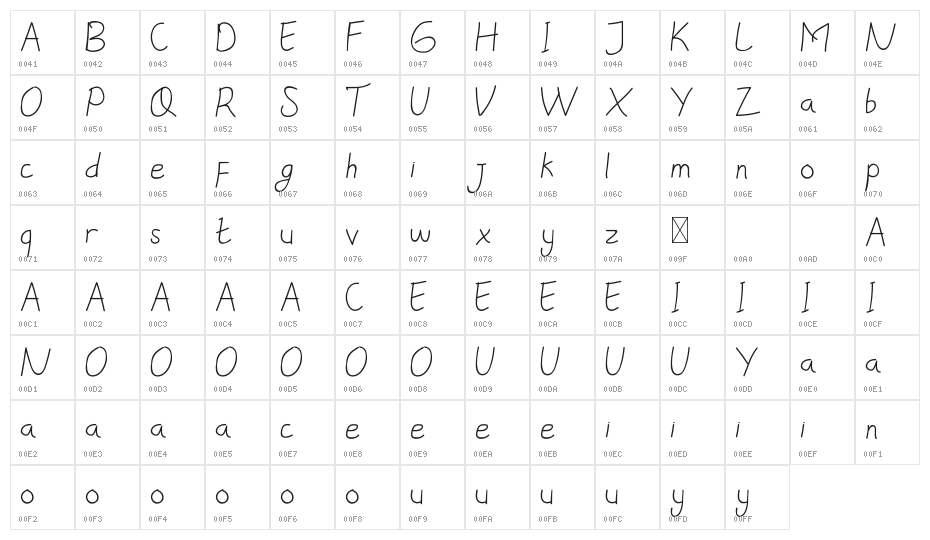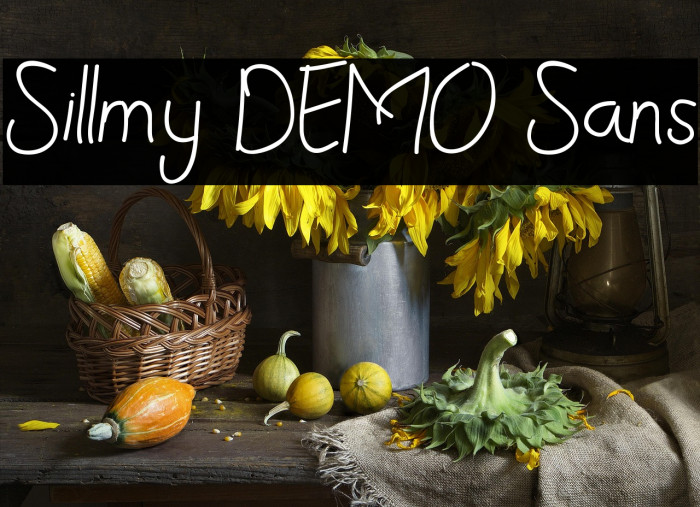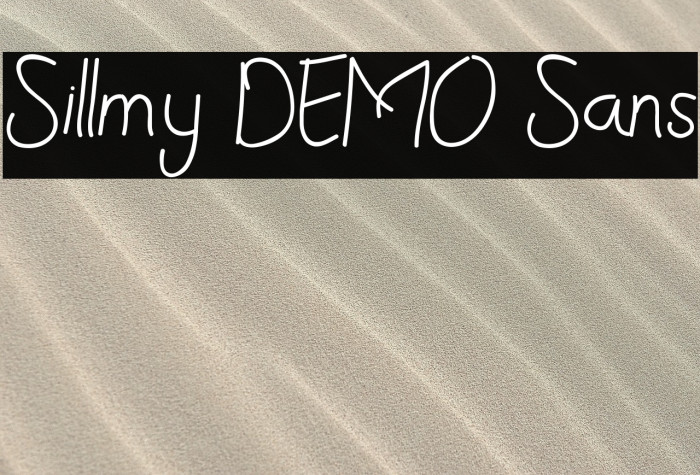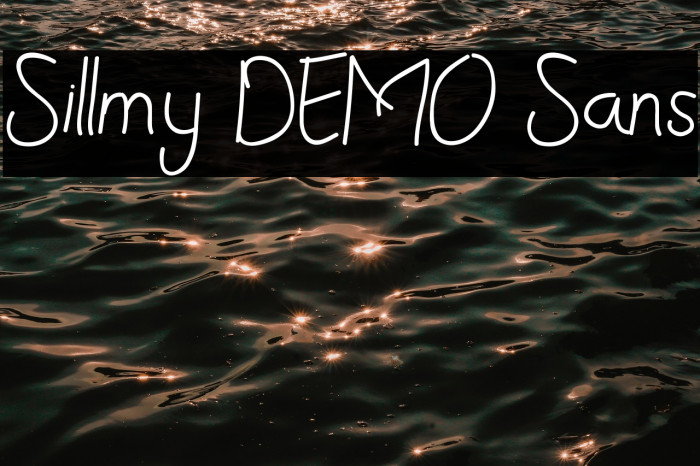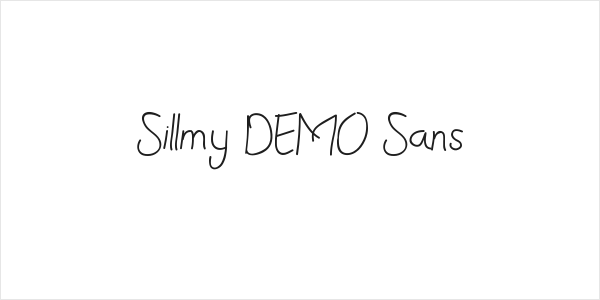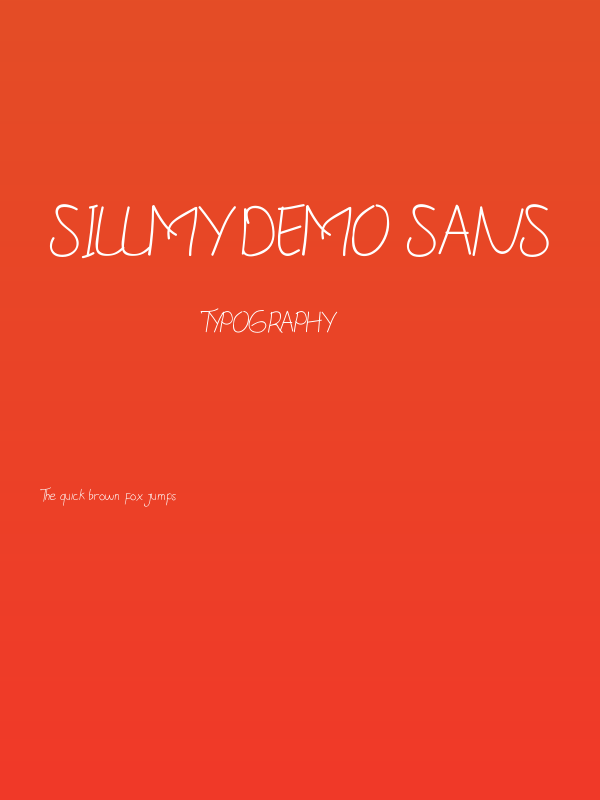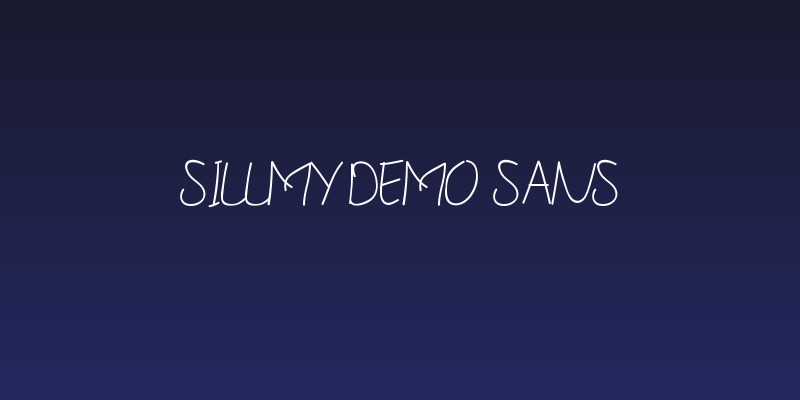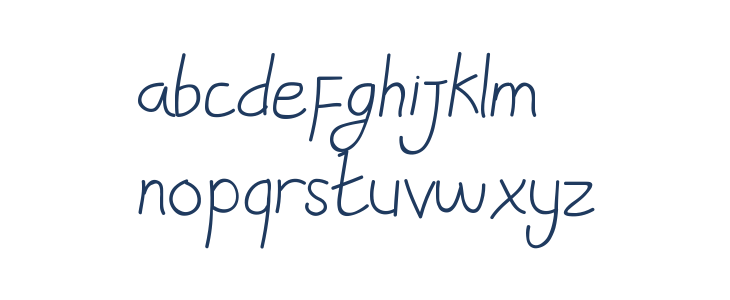
Sillmy DEMO Sans Font
Sillmy DEMO Sans Description
This font features a playful and informal style, characterized by its handwritten appearance. The letters are slightly slanted, giving it a dynamic and casual feel. The strokes are uneven, with varying thickness that adds to its organic and spontaneous look. The uppercase and lowercase letters maintain a consistent style, with rounded edges and a slight tilt. The numbers and special characters follow the same aesthetic, ensuring uniformity across all glyphs. This font is ideal for projects that require a personal touch, such as invitations, greeting cards, or creative branding.
| Proposed Projects | Ideal for invitations, greeting cards, creative branding, and informal communication. |